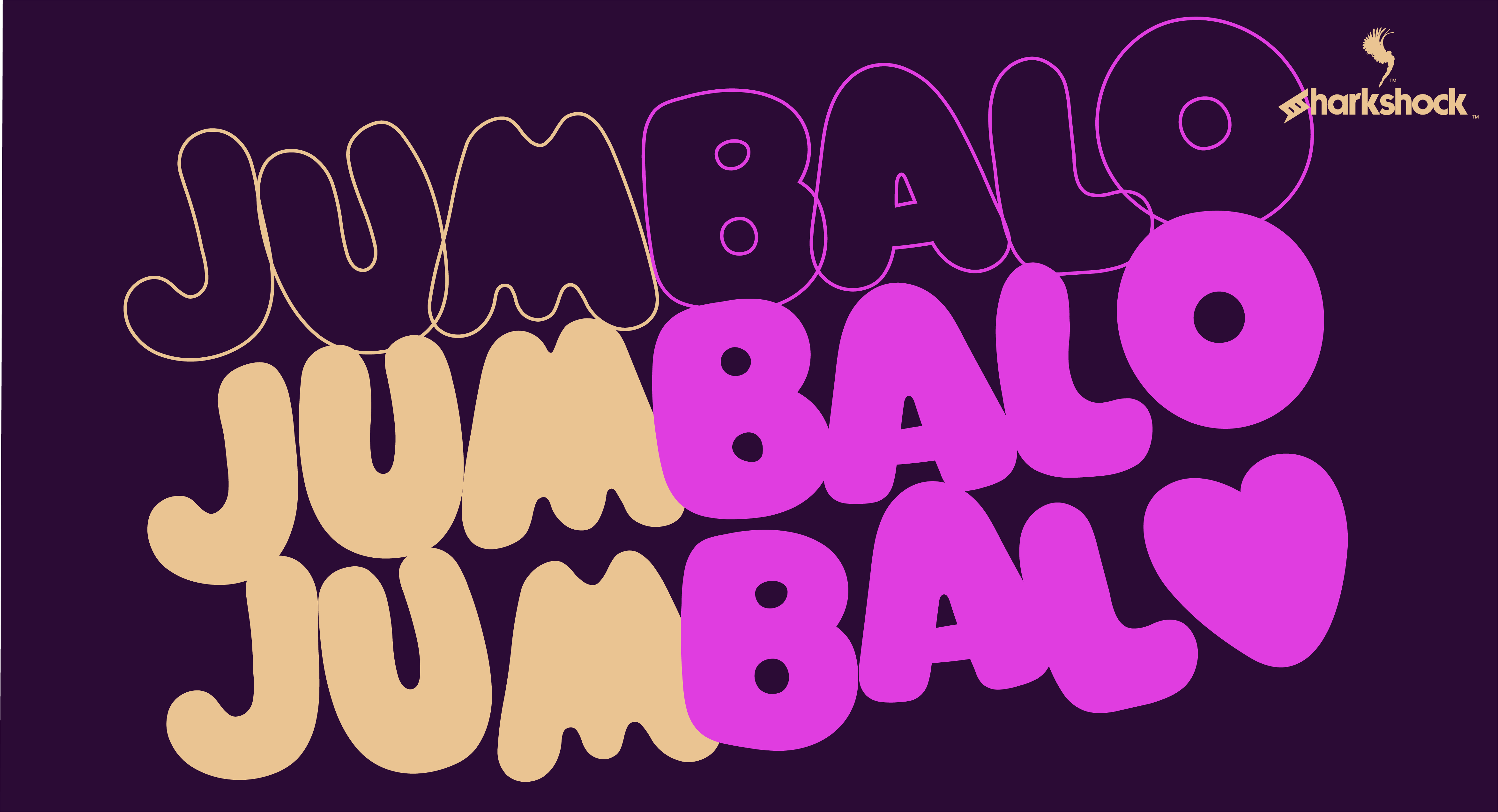
Preview and download Jumbalo Font. Created by Sharkshock in Fancy Cartoon styles with Demo license.
OTF/TTF: Jumablo (Regular, Outlines) Sharkshock 2022. All rights reserved Designed by Dennis Ludlow 03/15/2022 dennis@sharkshock.net Jumbalo is a fun loving family suitable for a variety of purposes. This all caps display font is characterized by its loose, rounded features and balloon-like structure which gives it a retro vibe. The letters are closely spaced together to create a snug feel. Jumbalo would work well in a children�s book, retail packaging, or company logo. The demo version contains Basic Latin, limited punctuation, and kerning. The complete family contains full and basic Latin, punctuation, European accents, kerning, and includes an outlined version. The full versions can be purchased for $35 via PayPal or by acquiring a commercial license. Do note that this $35 is for personal use only. Email us or visit www.sharkshock.net/license for more information on licensing. Unauthorized usage of our intellectual property is strictly prohibited and may result in legal action. Take a bite out of boring design! Tags: toys, publications, basic, book, display, kids, style, European, 70s, 80s, retro, children, warm, sans serif, accents, European, diacritics, logo, Sharkshock, wacky, cartoons, sans |